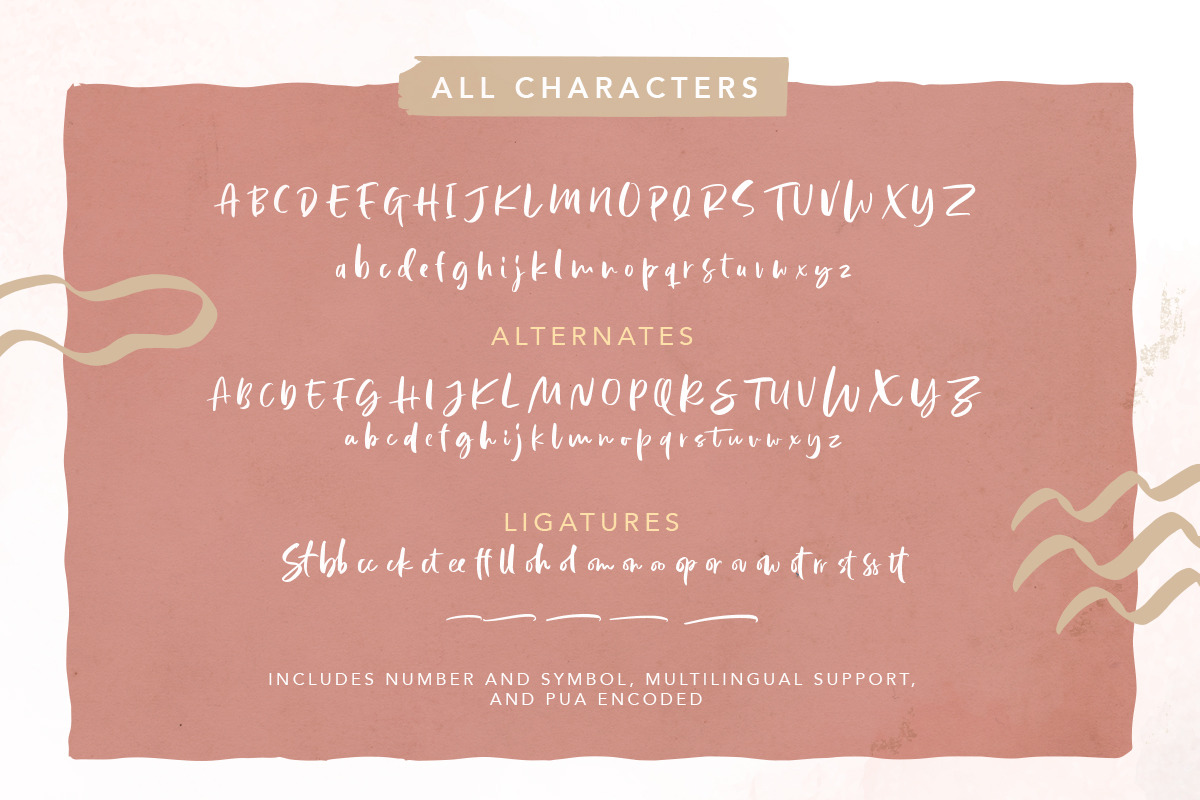
Lindsay Brown Script (+EXTRAS)
Introducing, Lindsay Brown Script!
Lindsay Brown Script is a script that contain lowercase, uppercase, symbol, and also support multi language. This font also contain an alternates in each characters. There's a lot ligatures in this font. Lindsay Brown Script is a font that you can use to make a logo for branding, beautiful fashion design, suitable for wedding invitation, or handwritten quote. Not only that, this font also contain EXTRA DOODLE in font and vector format!
Foreign Languages Support: ÀÁÂÃÄÅÇÈÉÊËÌÍÎÏÑÒÓÔÕÖØÙÚÛÜÝßàáâãäåæçèéêëìíîïñòóôõöøùúûüýÿ